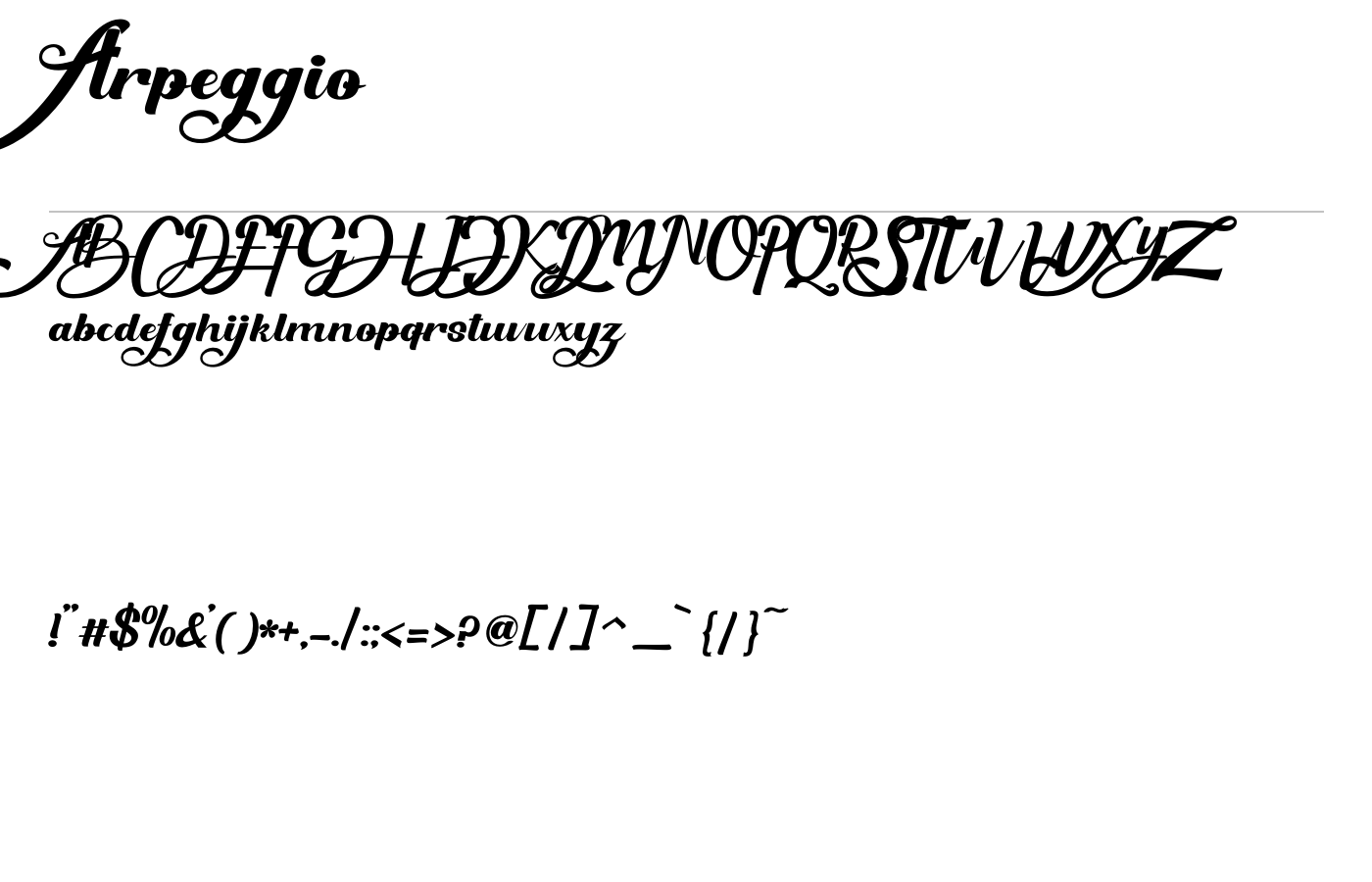
Arpeggio is an elegant script font with flowing, interconnected letterforms that evoke a sense of sophistication and charm. Its bold weight and smooth curves make it ideal for luxury branding, invitations, and decorative headlines where a touch of classic refinement is desired. This font shines in creative projects seeking an expressive, stylish look with a timeless, handcrafted feel.
Arpeggio Font
About Arpeggio Font
| Font family | Arpeggio Font |
| Designer | Haksen Letters |